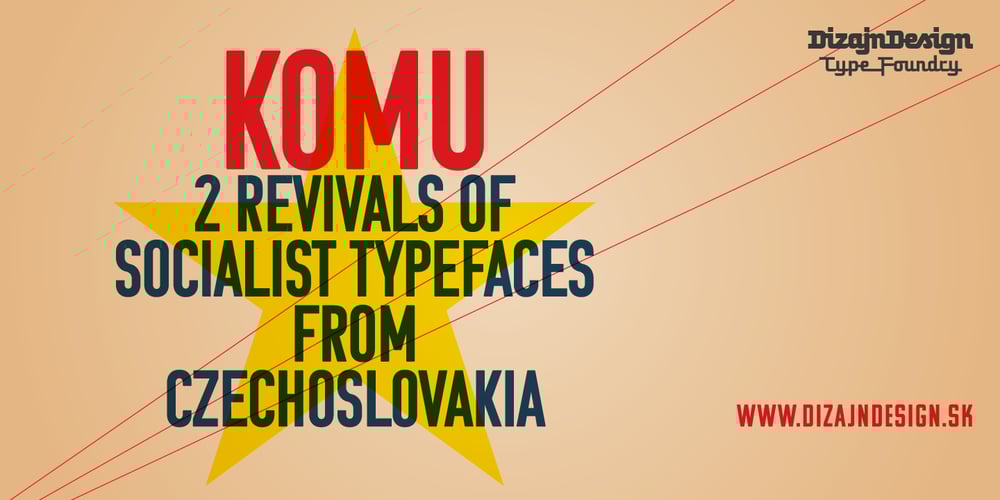
Komu
Komu font
Komu Font Family was designed by Ján Filípek and published by DizajnDesign. Komu contains 2 styles and family package options. Komu is the revival of a style of letters frequently used on billboards during the socialist period in the former Czechoslovakia. These were usually uppercase letters made of paper and covered with a layer of aluminum foil. People just had to pick the letters (that included a variety of widths and sizes) out from a box and pin them up on a styrofoam billboard, thus making it easy to announce any event. Komu consists of two styles. Version A is rather squarish and includes some weird characters (K, 5, narrow E, strange diacritics) while version B is more rounded with most letters equally wide (with the exception of E, F and L, which look really wide next to the rest). The optical disparity of the original letters was kept, so that some of them look slightly darker than the others. Komu is intended to be used on posters, books and other products about Socialism in our region and includes full support for languages based on latin script.